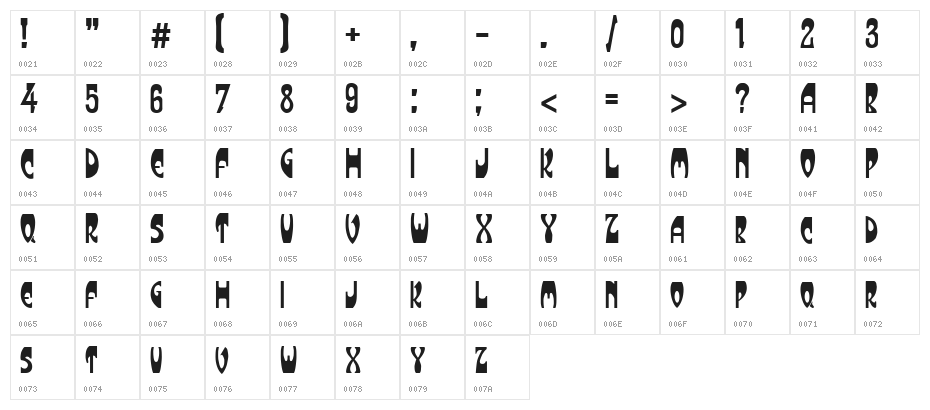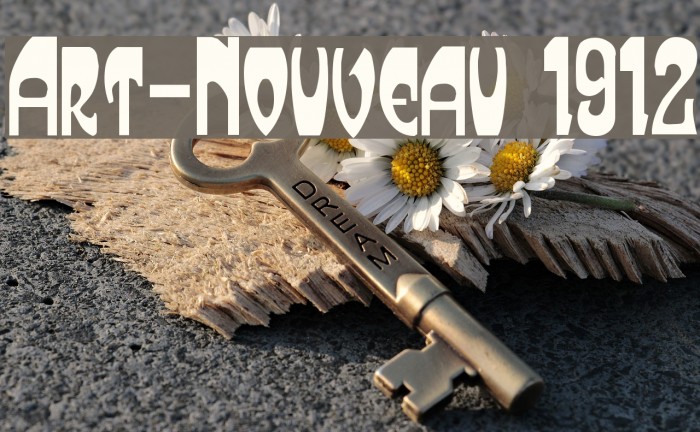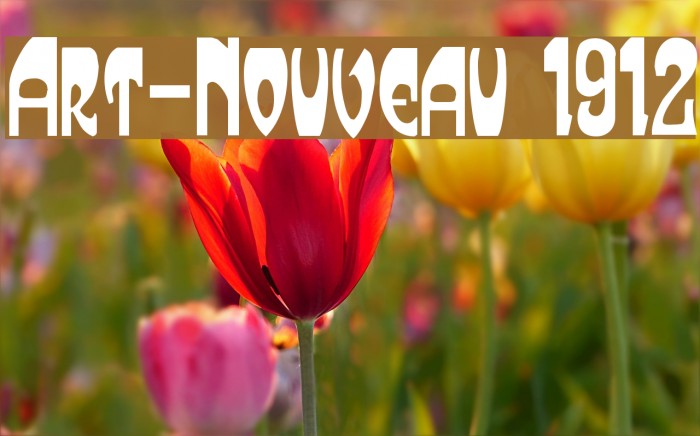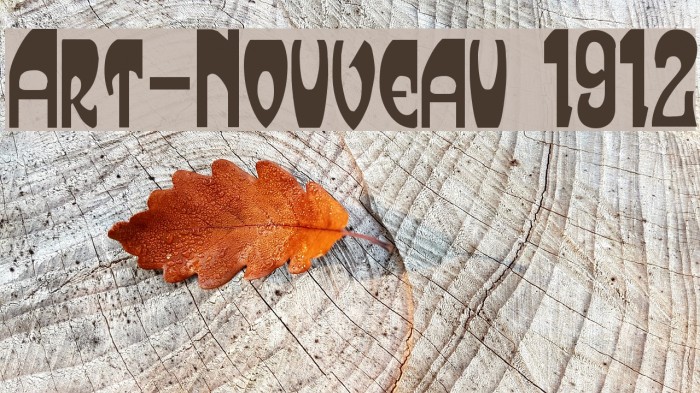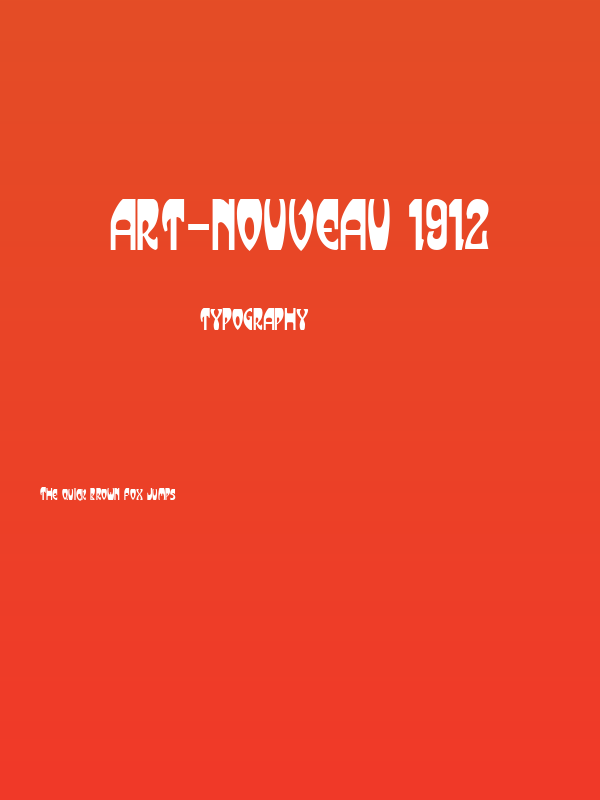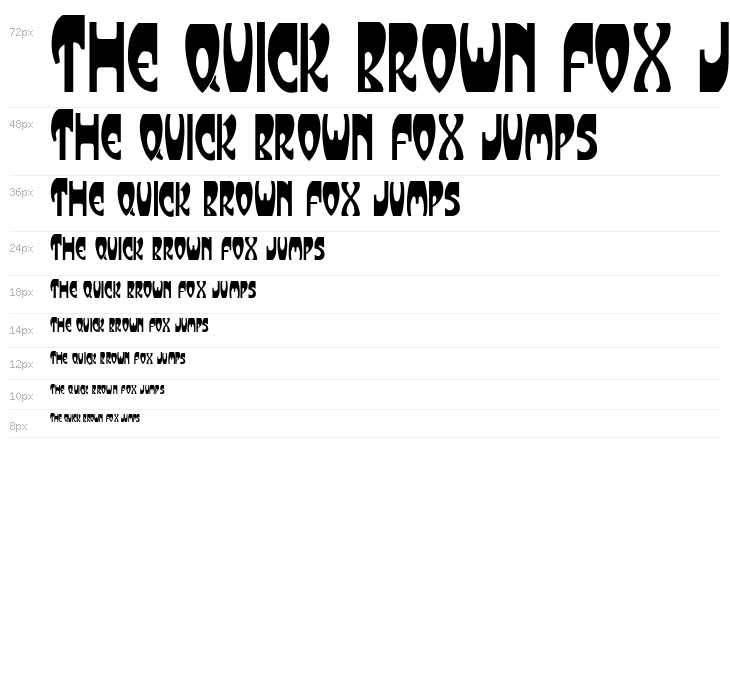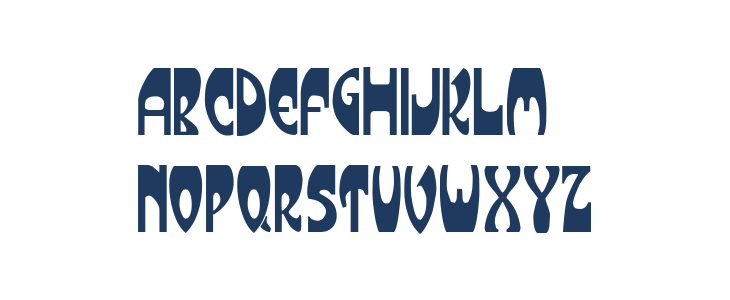
Art-Nouveau 1912 Font
Art-Nouveau 1912 Description
This font embodies the essence of the Art Nouveau movement, characterized by its flowing, organic shapes and intricate detailing. The letters are bold and exhibit a unique curvature that reflects the natural forms and structures typical of the early 20th century design. The uppercase and lowercase letters maintain a consistent style, with exaggerated curves and a sense of movement. The numbers and special characters are equally stylized, ensuring a cohesive look across all elements. This font is ideal for projects that aim to capture a vintage or artistic flair, offering a distinct and memorable visual impact.
| Use Case | Headlines, Logos, Decorative text |
| Proposed Projects | Ideal for vintage posters, artistic branding, decorative invitations, and any project seeking an early 20th-century aesthetic. |